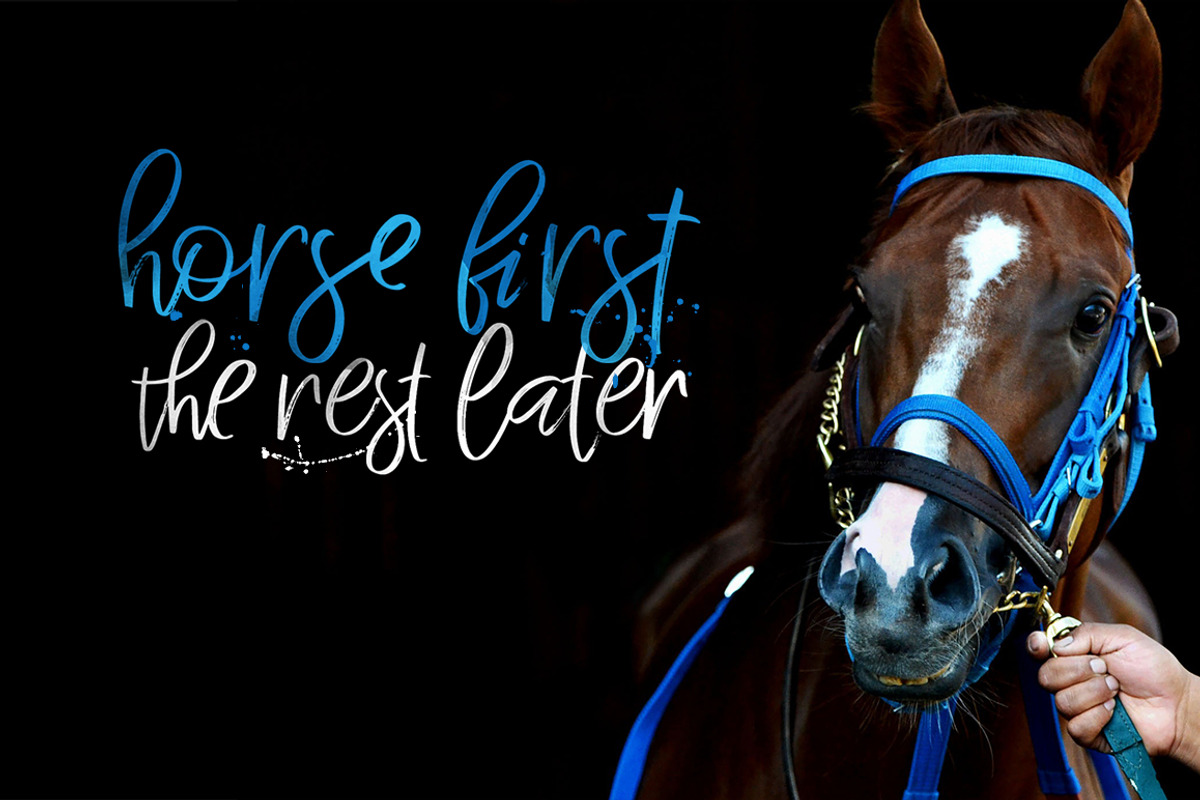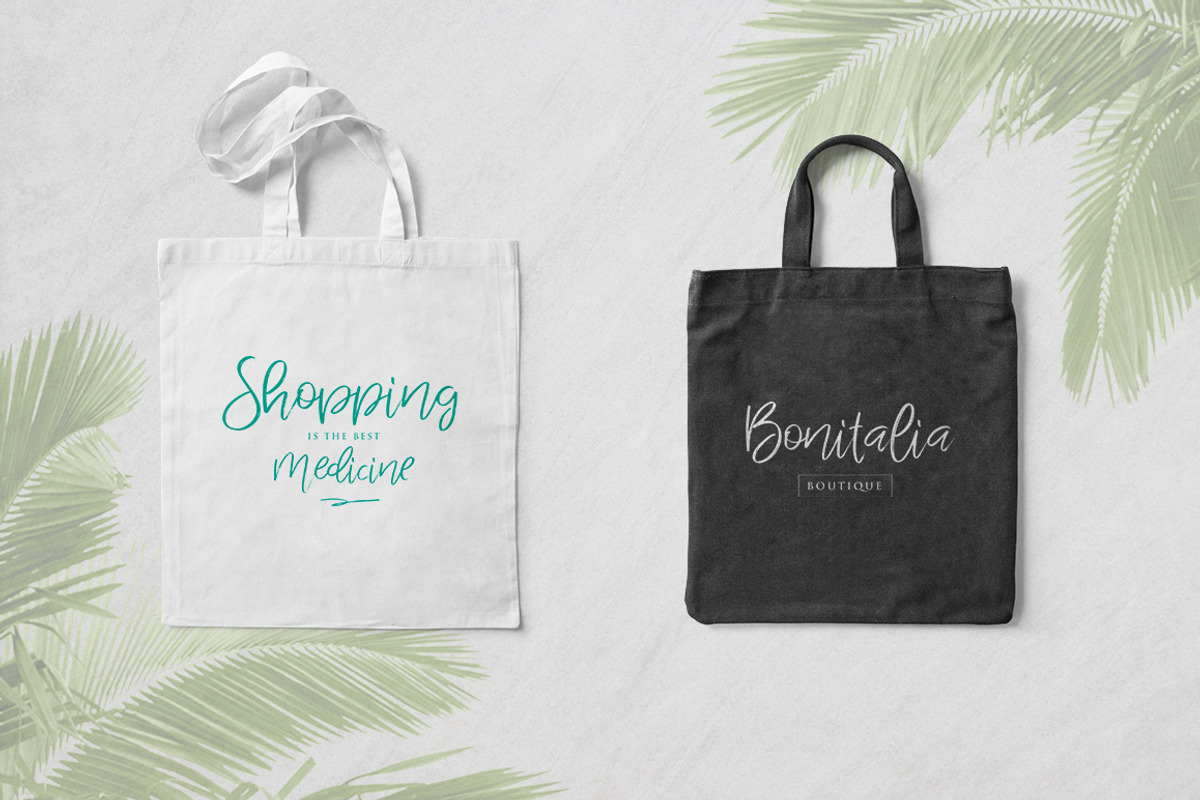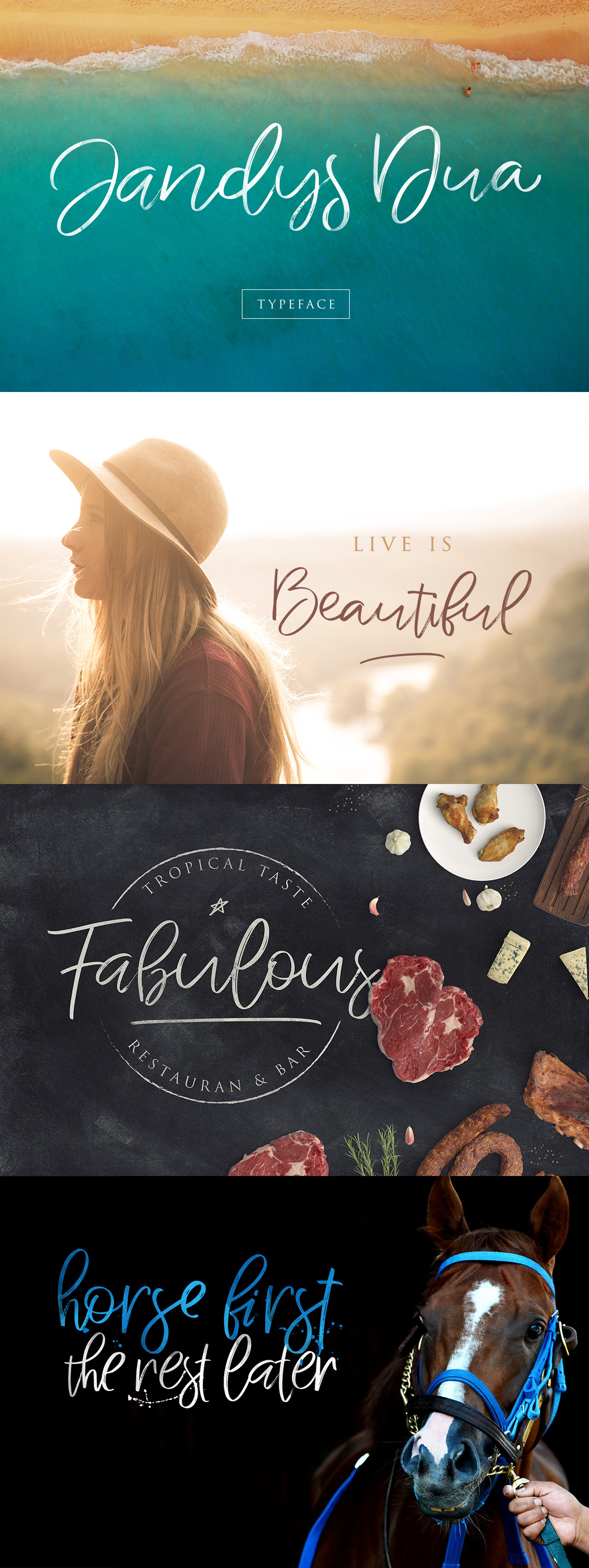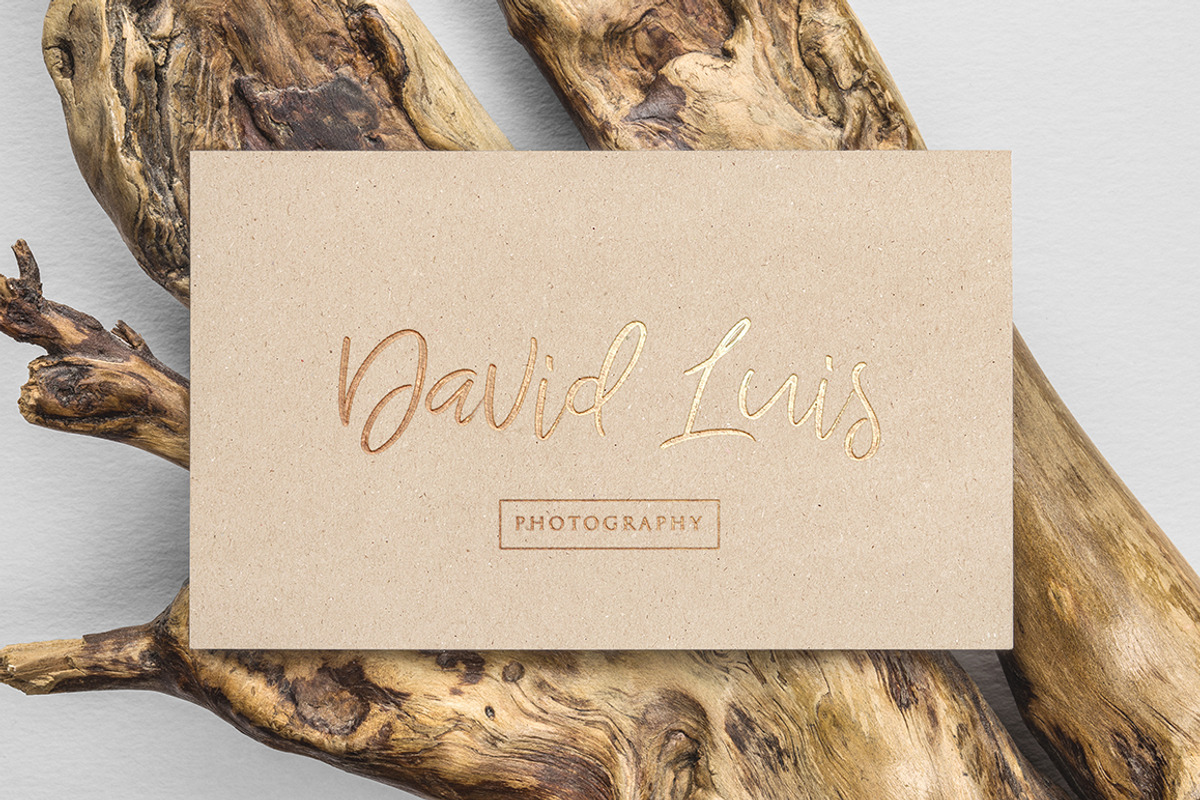
Jandys Typeface
Introducing Jandys Typeface which has a fast dry brush and elegant style. So it looks natural like a handwritten. This font is best used for your design project that has the concept of elegant, cool and fun. Can also be applied to the design of a logotype, header website, make some lettering a quote, t-shirt design, wedding card design etc.
Jandys has two font styles are similar but different, namely is Jandys Dua but that you also get a Jandys Swash of dry brush formatted like a using font.
Jandys Typeface deserve to be one of your fonts collections, because it is unique, elegant and has many options of alternative glyphs.
- Character Set A-Z
- Standart Ligature
- SS01